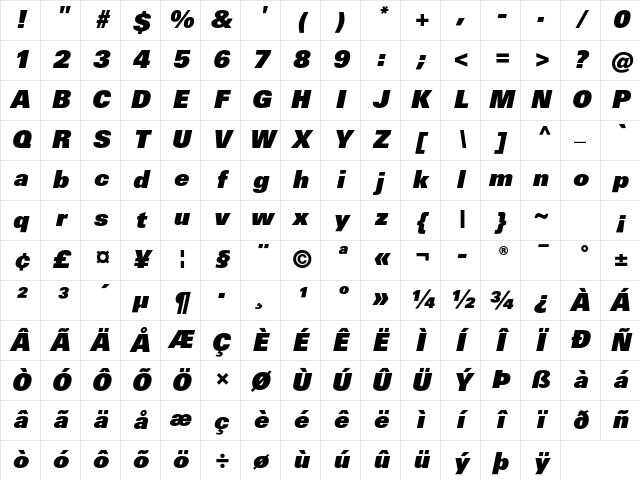
Complete Univers LT W0485 Bold Italic glyph index. Displaying only characters natively supported by Univers LT W0485 Bold Italic font.
Univers LT W0485 is a composed and adaptable typeface that performs quietly and consistently across a wide range of design contexts. The slanted form adds forward momentum and visual energy. Its bold stroke weight gives it real presence on the page.
Pro Tip: Use Univers LT W0485 for emphasis, pull quotes, and subheadings where its slanted energy can add rhythm to the layout.